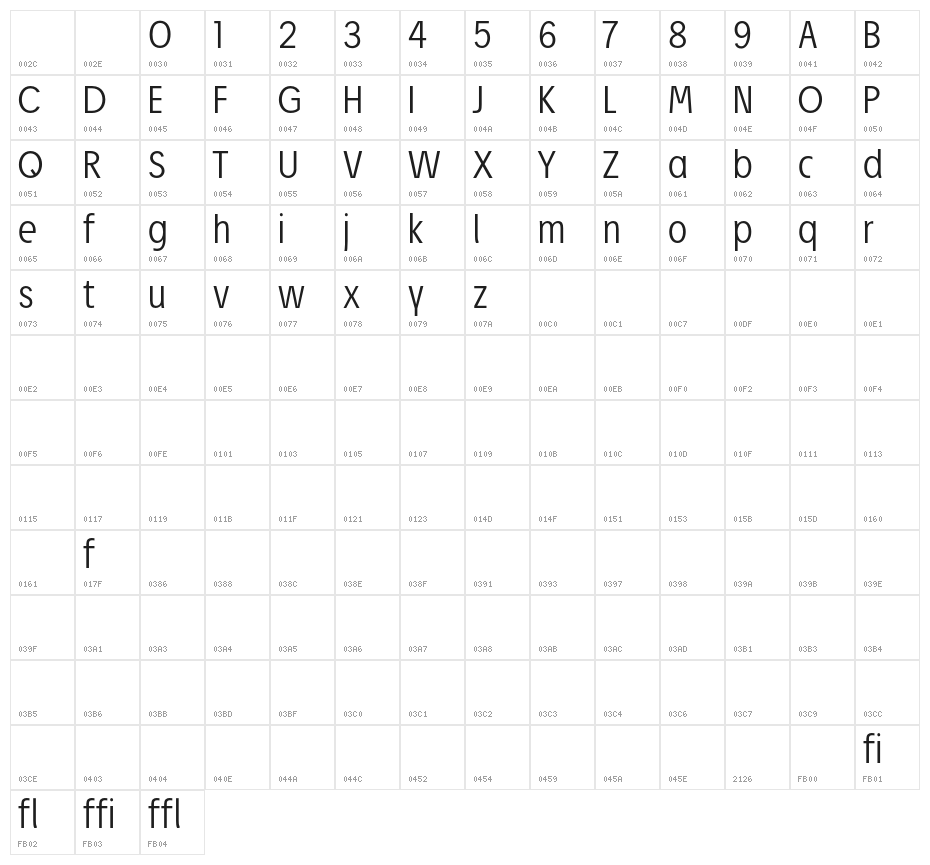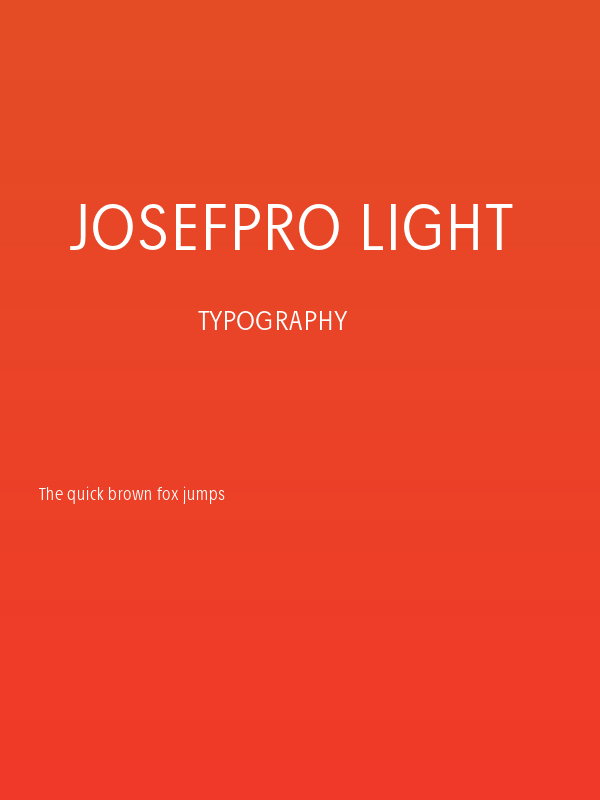
JosefPro-Light Font
JosefPro-Light Description
This typeface features a clean and modern sans-serif design, characterized by its light weight and minimalistic aesthetic. The letters are evenly spaced, providing excellent readability and a sleek appearance. The uppercase and lowercase letters maintain a consistent style, with smooth curves and straight lines that convey a sense of simplicity and elegance. The numerals are clear and distinct, matching the overall style of the alphabet. This font is versatile, suitable for a wide range of applications where clarity and modernity are desired.
| Use Case | Headlines, Body text, Logos |
| Proposed Projects | Ideal for use in digital interfaces, branding, advertising, and editorial design where a modern and clean look is required. |